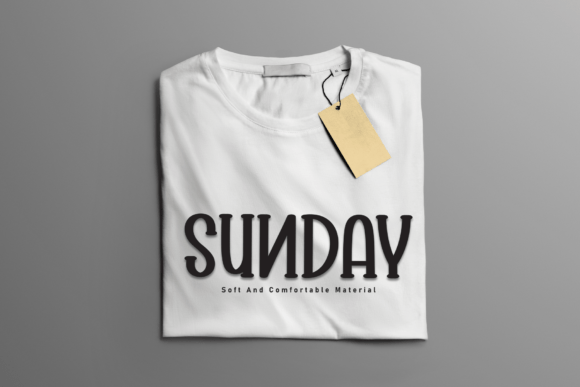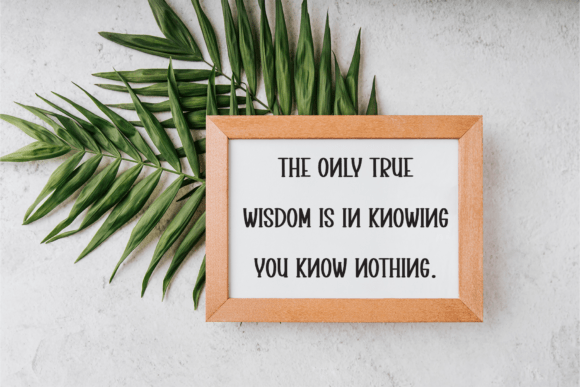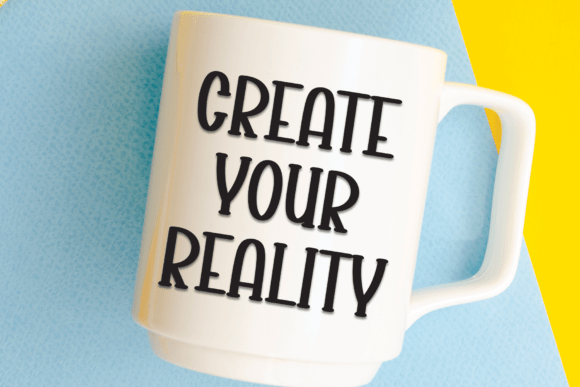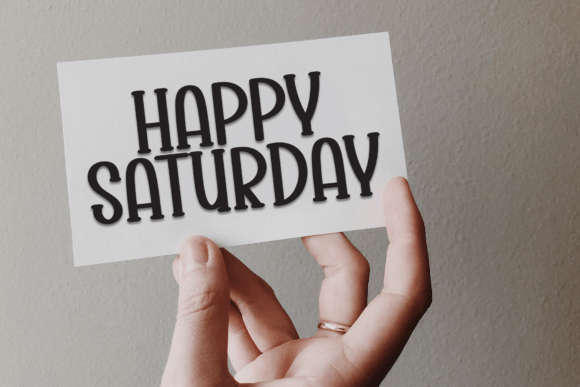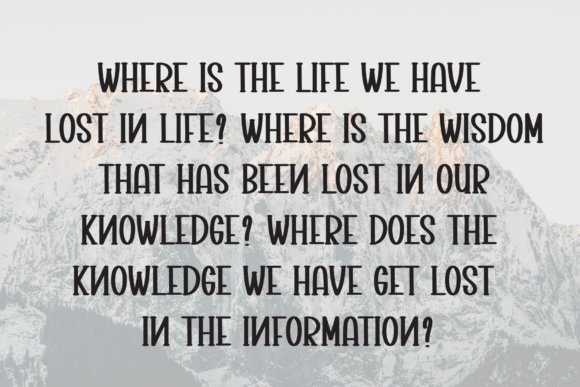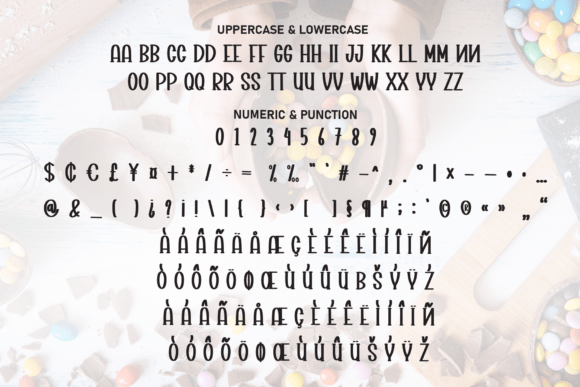
The Sweet Spot: Discovering the Charm of Candy Chocolate Font
I’ll never forget the time I was working on a branding project for a local bakery, and I just couldn’t find the right font to capture their playful, homemade vibe. The client wanted something that felt friendly and approachable, but still stood out on social media and packaging. That’s when I stumbled upon the Candy Chocolate Font – a game-changer for any designer looking for a lively, handcrafted feel.
First Impressions: A Personal Review
I’ve had the pleasure of working with Candy Chocolate Font on several projects, and here’s what I love:
- ✨ Playful curves and casual style: This font brings a natural, hand-written charm to any design, making it perfect for logos, posters, and social media graphics.
- ✅ Readability and character: It strikes the perfect balance between being easy to read and having a unique personality.
- 💬 Versatility: Use it for quotes, packaging, or any project that needs a friendly, handcrafted feel.
Of course, no font is perfect, and here are a few quirks to keep in mind:
- 🤔 Limited use in very small sizes: While it’s generally readable, the font’s playful nature can get lost in very small sizes (below 10pt).
- ⚠️ Some glyphs may require manual adjustment: Depending on your design, you might need to tweak certain glyphs for optimal spacing and alignment.
The Story Behind the Font: Designer Inspiration
Candy Chocolate Font was inspired by the playful, whimsical world of handmade crafts and baked goods. Imagine a font that’s as sweet as a chocolate chip cookie, fresh from the oven. The designer aimed to capture the natural, hand-written charm of a friendly baker’s recipe book, and the result is a font that’s both fun and functional.
| Is Candy Chocolate Font suitable for body text? | While it’s primarily designed for display use, Candy Chocolate Font can be used for short paragraphs or captions. However, it’s recommended to use a clear, readable font for longer body text. |